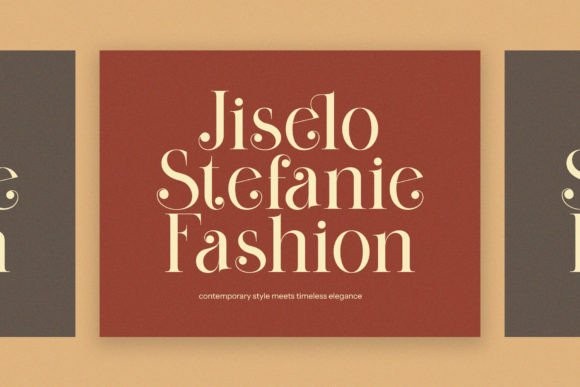
Gilgha Font: Elevate Your Designs with Elegance and Luxury
In the world of typography, fonts play a crucial role in conveying the tone and personality of a brand. When it comes to creating a lasting impression, a well-designed font can make all the difference. This is where Gilgha Font comes in – an elegant and classy serif font that is perfect for all your design needs. In this article, we’ll explore the features and benefits of Gilgha Font and why it’s an excellent choice for your branding and design projects.
The Elegance of Gilgha Font
Gilgha Font is a masterpiece of typographic design, crafted with elegance and luxury in mind. Its serif design exudes sophistication and refinement, making it an ideal choice for high-end branding and logo designs. The font’s classic look and feel evoke a sense of tradition and heritage, while its clean lines and precise curves ensure that it remains modern and fresh.
Key Features of Gilgha Font
- Elegant Serif Design: Gilgha Font boasts a beautiful serif design that adds a touch of sophistication to any design project.
- Luxurious Feel: The font’s luxurious feel makes it perfect for high-end branding and design projects that require a sense of exclusivity and refinement.
- Unique Ligatures and Alternates: Gilgha Font comes equipped with many beautiful and unique ligature and alternate options, allowing you to add a personal touch to your designs.
- High Readability Level: The font’s high readability level ensures that your message is conveyed clearly and effectively, making it perfect for a wide range of design applications.
Versatility of Gilgha Font
One of the standout features of Gilgha Font is its versatility. Whether you’re working on a branding project, logo design, social media post, advertisement, label, product packaging, photography, wedding design, watermark, invitation product design, or stationery, this font is up to the task. Its elegant design and luxurious feel make it an excellent choice for any project that requires a high level of sophistication and refinement.
Design Applications of Gilgha Font
- Branding Projects: Gilgha Font is perfect for creating a strong brand identity that exudes elegance and sophistication.
- Logo Designs: The font’s unique ligatures and alternates make it an excellent choice for creating custom logo designs that stand out from the crowd.
- Social Media Posts: Gilgha Font can add a touch of luxury to your social media posts, making them more engaging and shareable.
- Advertisements: The font’s high readability level and elegant design make it perfect for creating effective advertisements that grab attention.
- Labels and Product Packaging: Gilgha Font can add a touch of sophistication to your product packaging and labels, making your products stand out on store shelves.
Why Choose Gilgha Font?
With so many fonts available, why choose Gilgha Font? Here are just a few reasons why this font stands out from the rest:
Reasons to Choose Gilgha Font
- Unique Design: Gilgha Font boasts a unique design that is both elegant and luxurious, making it perfect for high-end branding and design projects.
- High Versatility: The font’s versatility makes it suitable for a wide range of design applications, from branding and logo designs to social media posts and product packaging.
- Easy to Read: Gilgha Font has a high readability level, ensuring that your message is conveyed clearly and effectively.
- Customizable: The font’s unique ligatures and alternates allow you to add a personal touch to your designs.
In conclusion, Gilgha Font is an excellent choice for anyone looking to elevate their designs with elegance and luxury. Its unique design, high versatility, and ease of readability make it perfect for a wide range of design applications. Whether you’re working on a branding project, logo design, or social media post, Gilgha Font is sure to make a lasting impression.